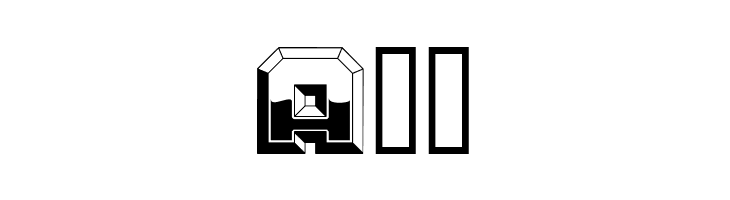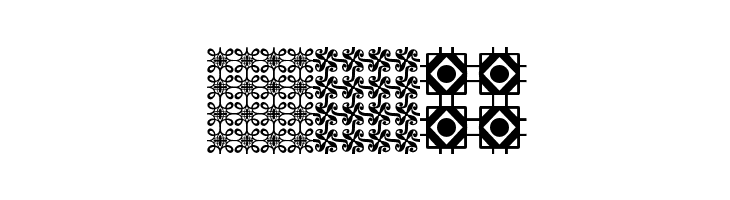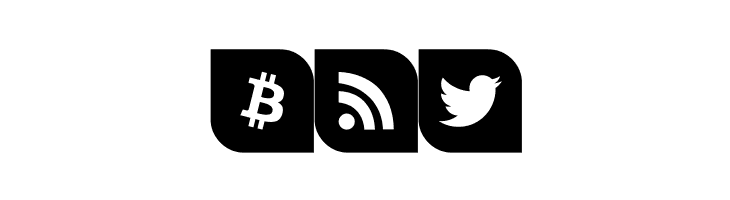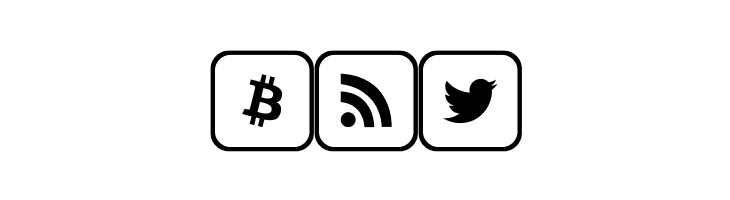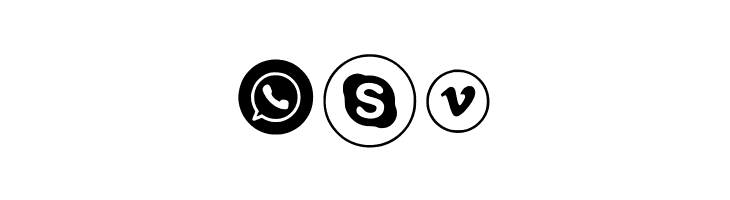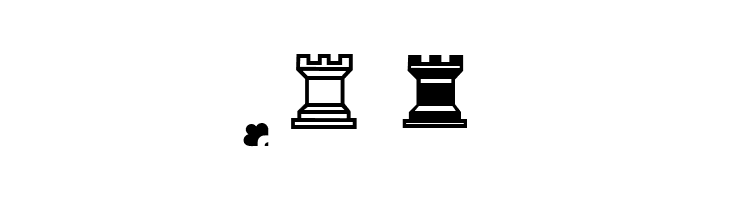
A bold, three-dimensional font with a metallic sheen and futuristic design.
Pattern-based decorative font with geometric and ornamental motifs.
Uniform set of outlined social and tech brand icons.
Icon-based font with social media and communication symbols.
A set of chess piece symbols with bold outlines for clarity.
Hand-drawn, bold skull icon set with playful and edgy styles.
Hand-drawn floral dingbat set with whimsical botanical motifs.